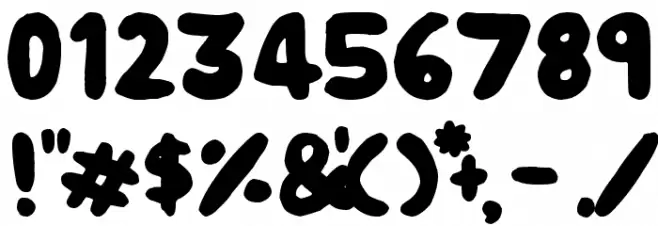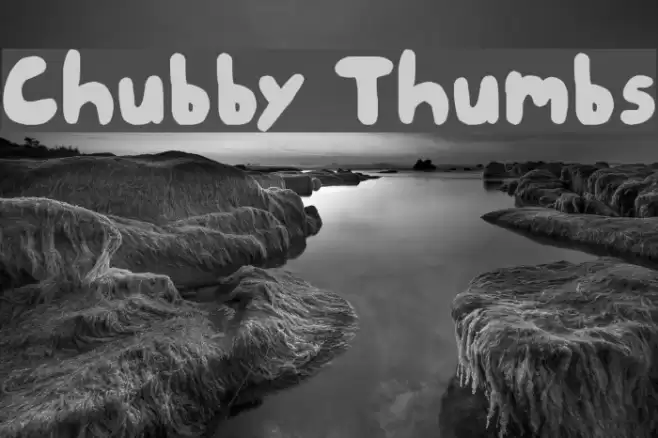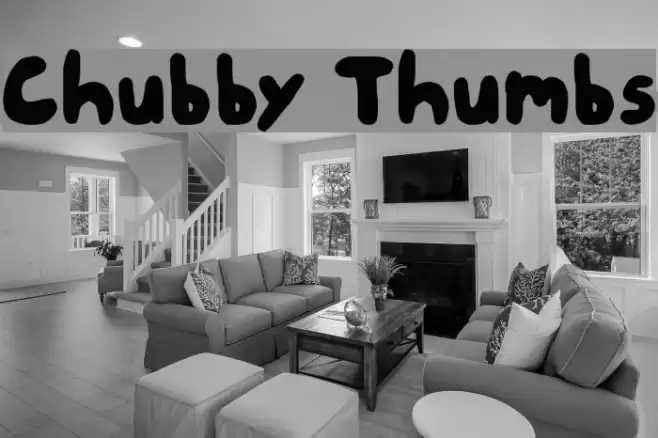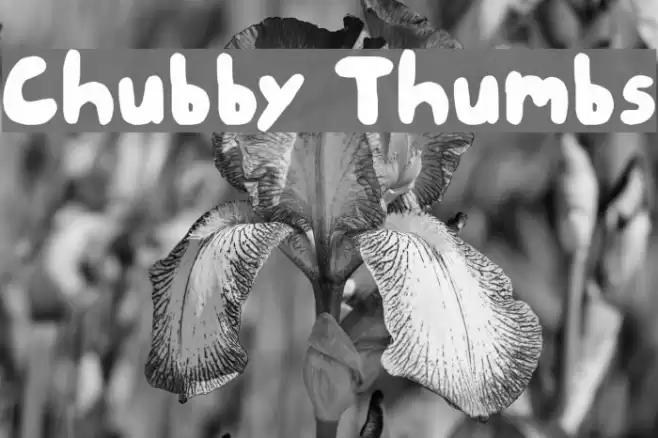
Chubby Thumbs Font
Chubby Thumbs Description
This playful and bold font features thick, rounded characters that exude a sense of fun and whimsy. The letters are uniformly chunky, with a consistent stroke width that gives them a cohesive appearance. The rounded edges and lack of sharp angles contribute to a friendly and approachable feel, making it ideal for informal and creative projects. The numerals and special characters maintain the same playful style, ensuring a harmonious look across all text elements. This font is perfect for projects that require a touch of humor and lightheartedness.
A playful, bold font with thick, rounded characters and a whimsical style from Uncategorized fonts.
- Proposed Projects: Ideal for children's books, playful branding, party invitations, and casual social media graphics.
- Overall Style: Playful, Whimsical